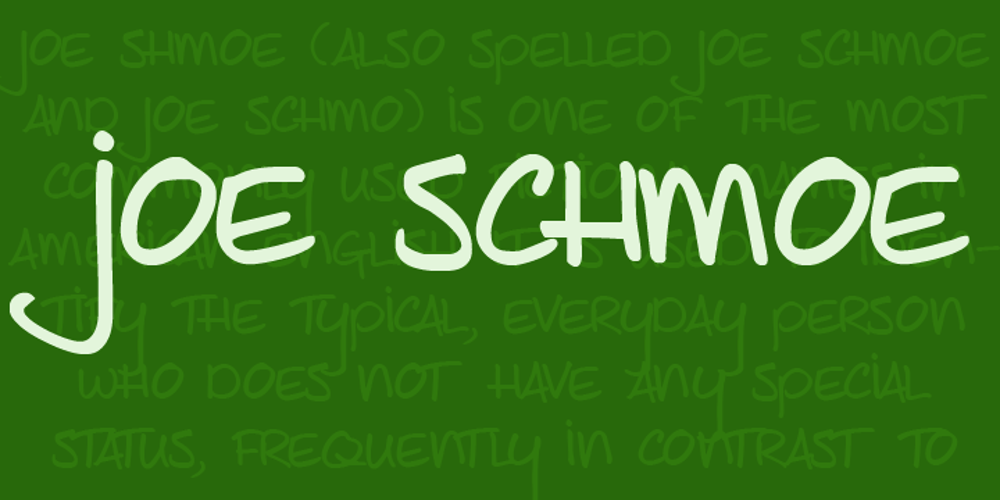
Joe Schmoe Font Family was designed by David Kerkhoff and published by Hanoded. Joe Schmoe contains 1 styles and family package options. Joe Shmoe is the regular guy, the one who doesn’t attract too much attention, but is always there when you need him. So is Joe Shmoe font: it is an easy-going, regular, nothing fancy kinda font and it comes with all the accents!